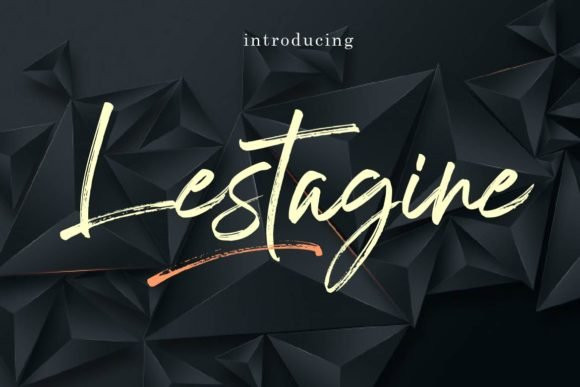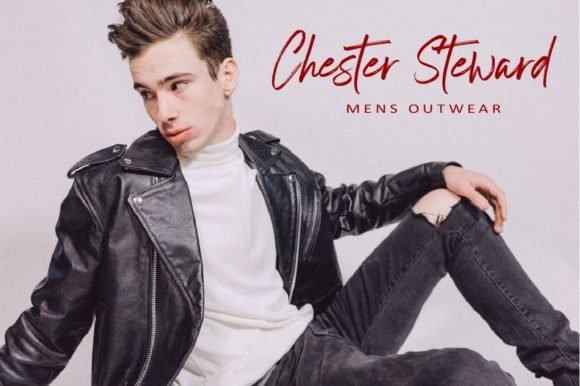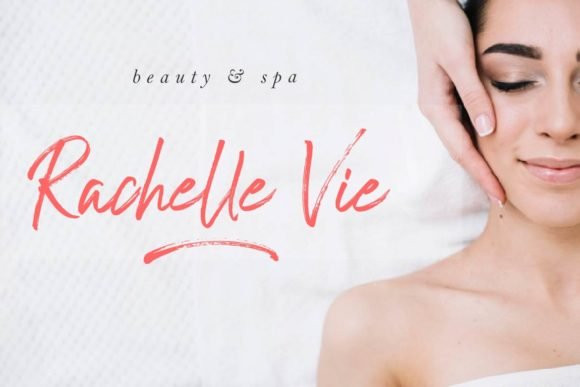
Lestagine Font
Lestagine is a beautiful and relaxed handwritten font. Fall in love with its incredibly versatile style and use it to create gorgeous wedding invitations, beautiful stationary art, eye-catching social media posts, and much more!